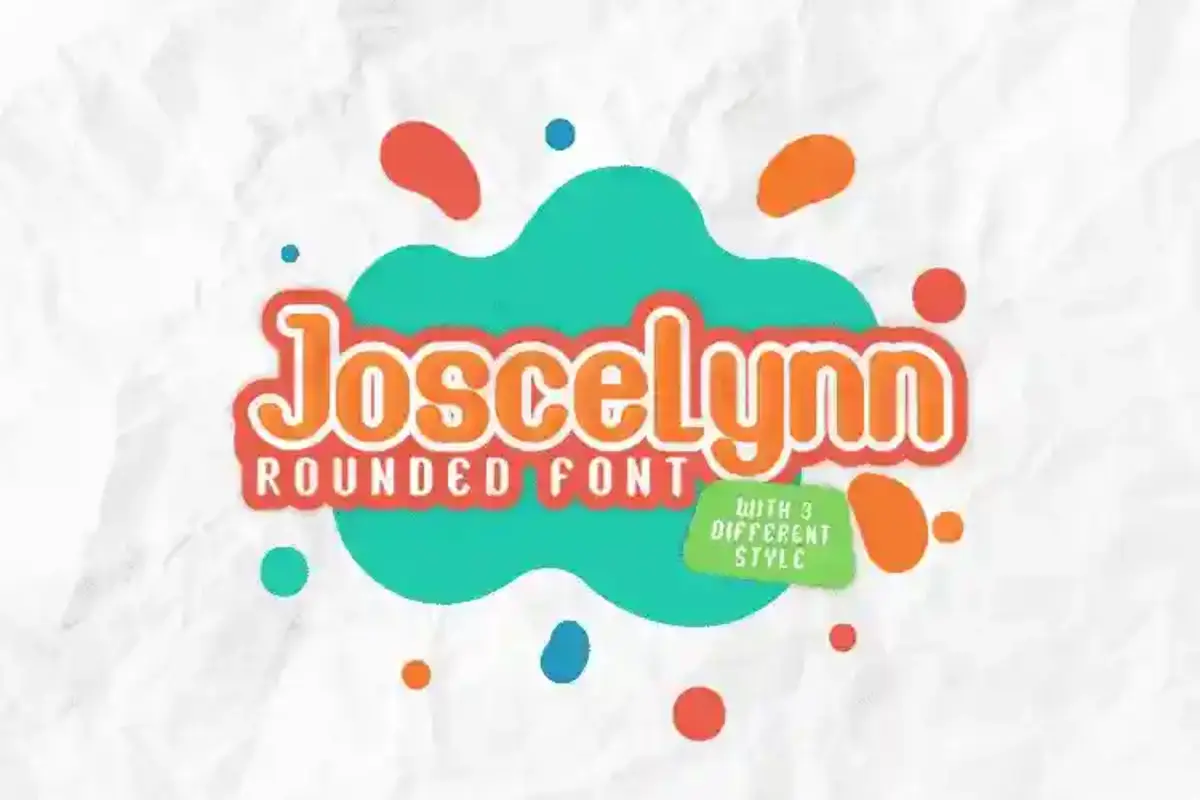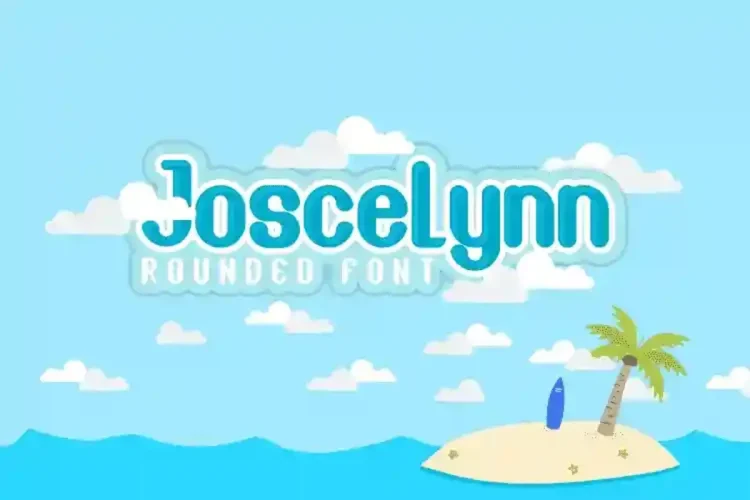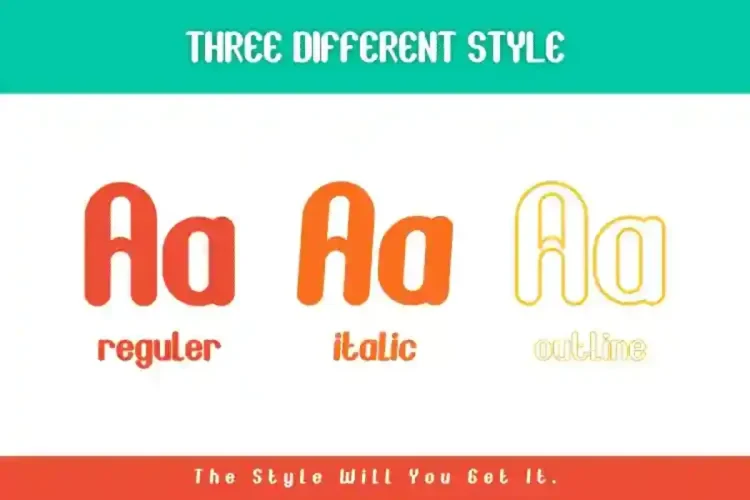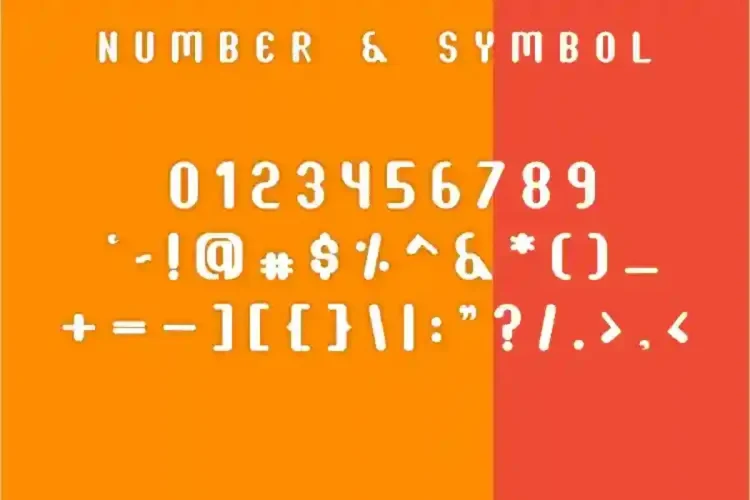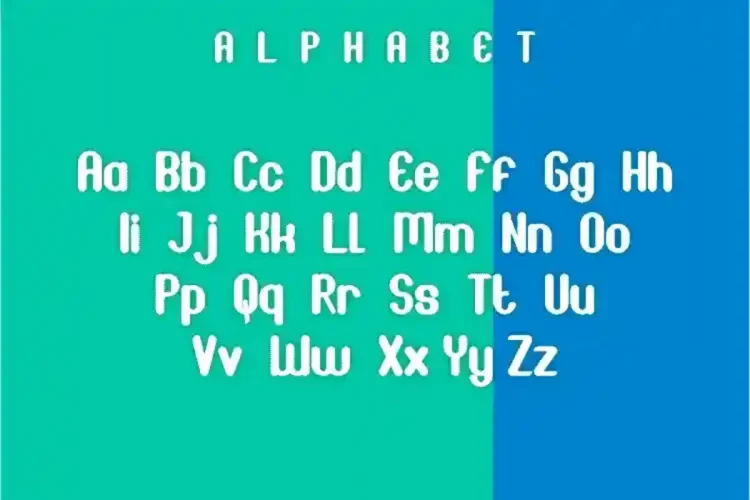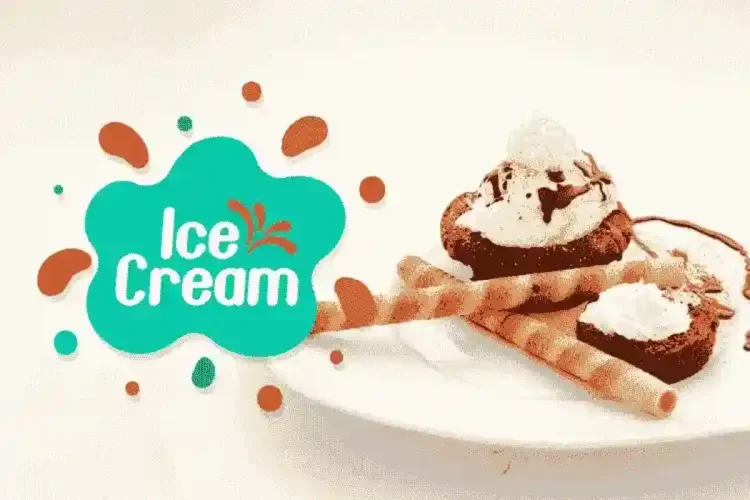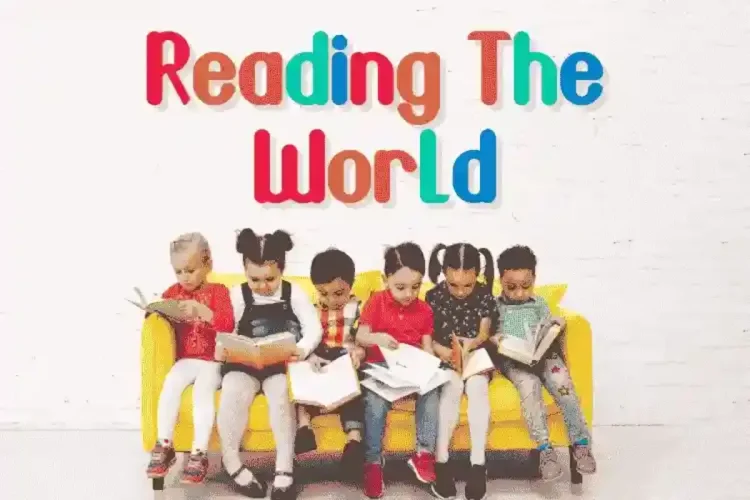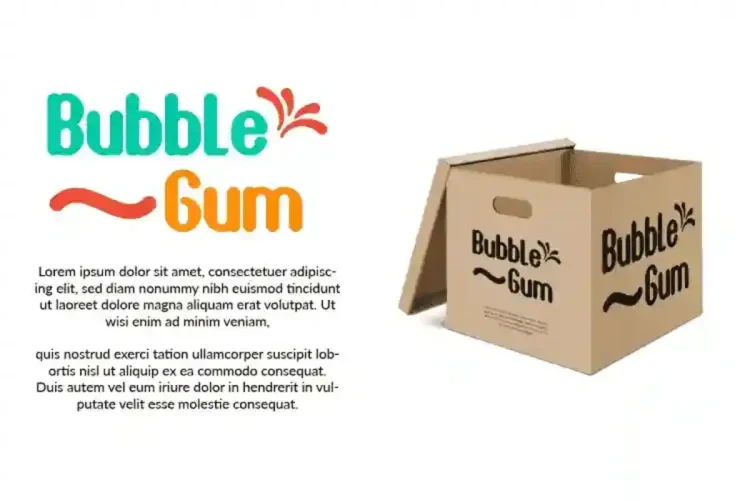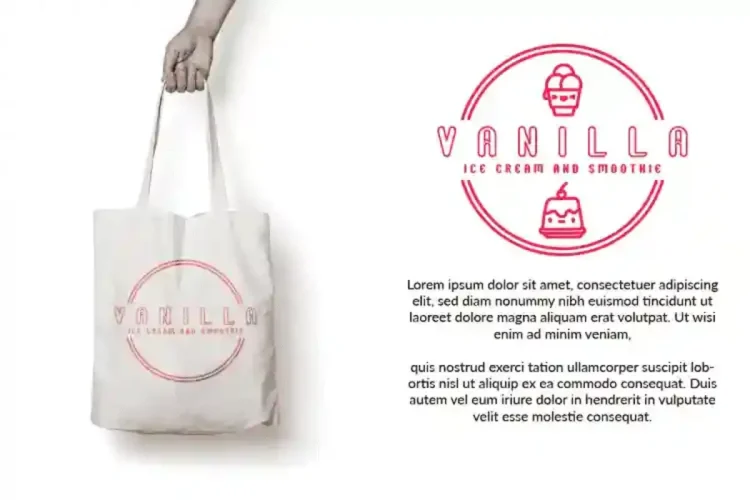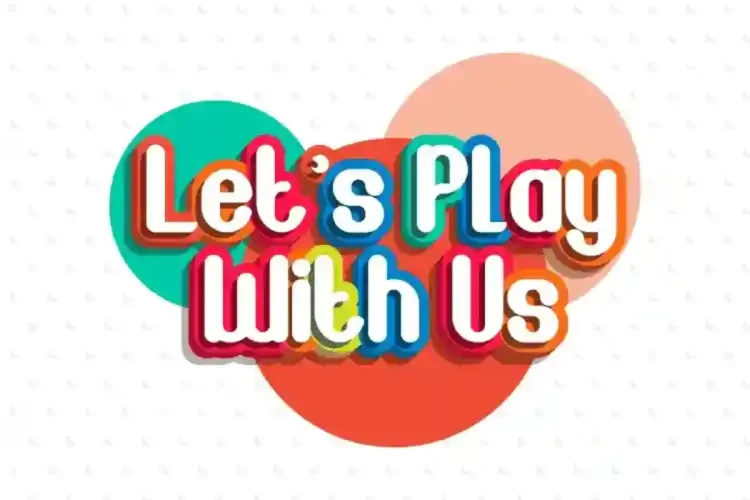
Joscelynn Fun Comic Fonts
What’s up Everyone! Introducing our newest font : Joscelynn !
This is a fun comic unusual non formal typeface. It has new unique style glyph . It has a fresh, elegant, natural and stylish glyphs. Will be great for comic, toddler, cartoon, illustration, cover branding, logo, stationery, business card, signage, flyer, brochure etc.
There are many industries that is suitable for this font : school, education, games, cleaning, entertainment etc.
🔡Joscelynn comes in THREE distinctive styles:
• Regular: Rounded, bold, and friendly—ideal for headlines, logos, and packaging that demand attention.
• Italic: Adds a touch of motion and whimsy—great for quotes, comic dialogue, or storytelling layouts.
• Outline: A stylish, outlined version perfect for layering effects or minimalist aesthetics.
Whether you’re creating for kids, social media, or product packaging, this font brings a bright and friendly vibe to your work. With three clean and fun styles to choose from, Joscelynn adds just the right amount of playfulness without losing clarity or style. It’s time your design had more fun!
💡 Why choose Joscelynn?
• Perfect for a wide range of industries: from education to entertainment, snack brands to apps for kids
🎉 Say Goodbye to Boring Fonts. Say Hello to Joscelynn!